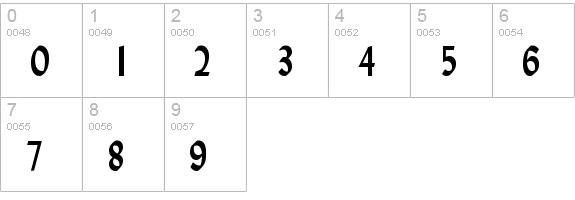
Lynda Condensed Bold is a strong, high-contrast, condensed-width variant in the Lynda typeface family \xE2\x80\x94 well suited to headlines, attention-grabbing titles, and strong calls-to-action.
Lynda Condensed Bold is a sleek and modern typeface that exudes confidence and professionalism. Its bold design makes a statement while remaining easy to read, making it perfect for headlines, titles, and branding materials. The condensed style allows for more text to fit in a limited space without sacrificing legibility. This versatile font is ideal for a wide range of design projects, from business cards to website headers. Its clean lines and sharp edges give it a contemporary look that will elevate any design it is used in. Whether you are creating a poster, flyer, or logo, Lynda Condensed Bold will help your message stand out. And the best part? Lynda Condensed Bold is available for free download at FontsMarket.com. So why wait? Add this powerful and stylish font to your collection today and take your designs to the next level.